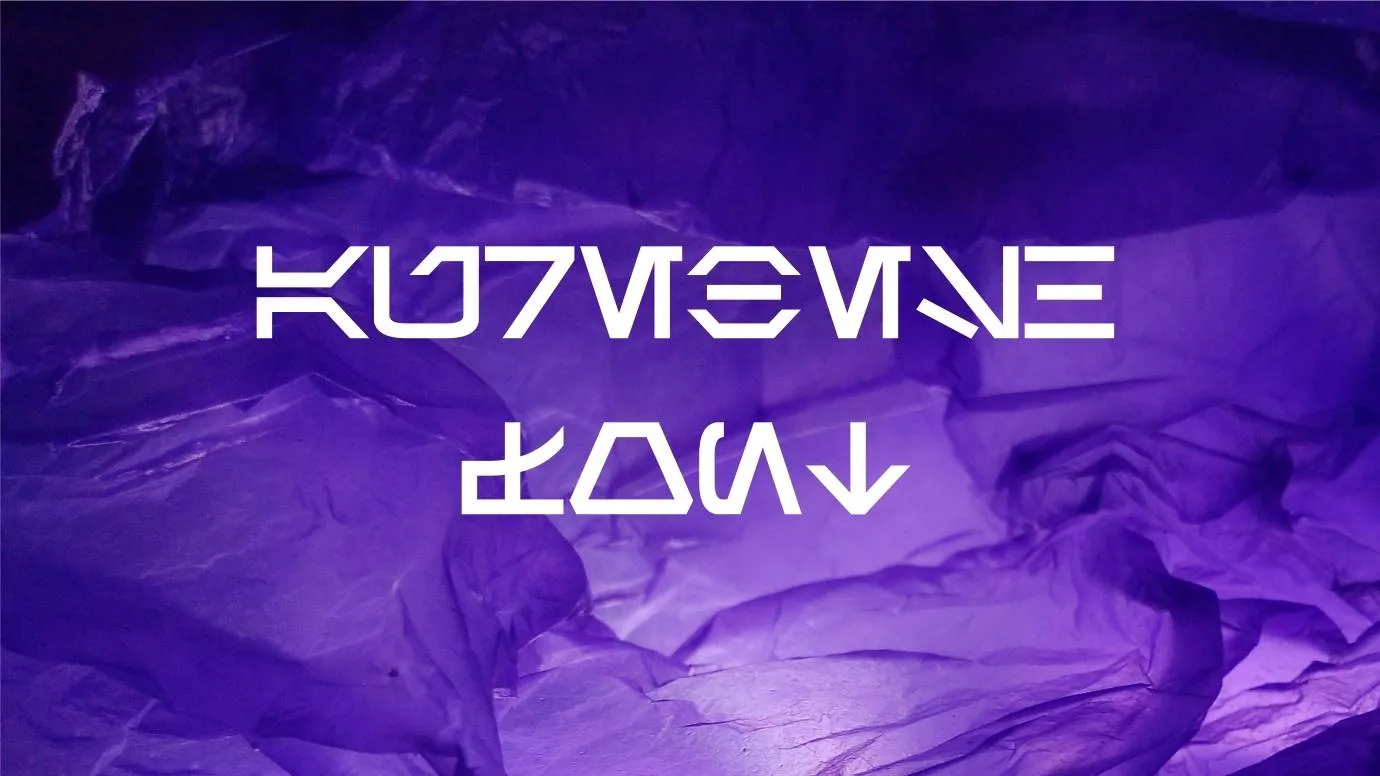
Aurebesh Font is a new and stylish movie font that was designed by Pixel Sagas. This beautiful font is designed based on the old RPG version. It comes in more than 241 characters.